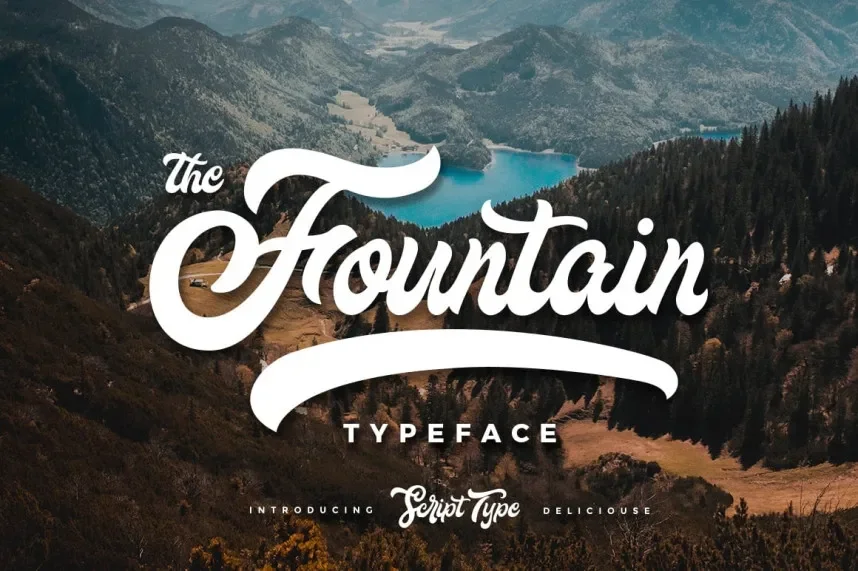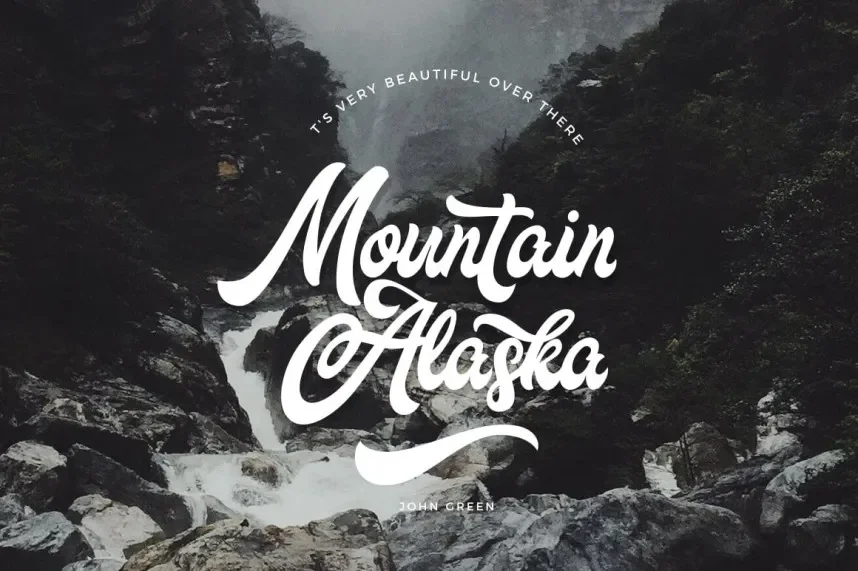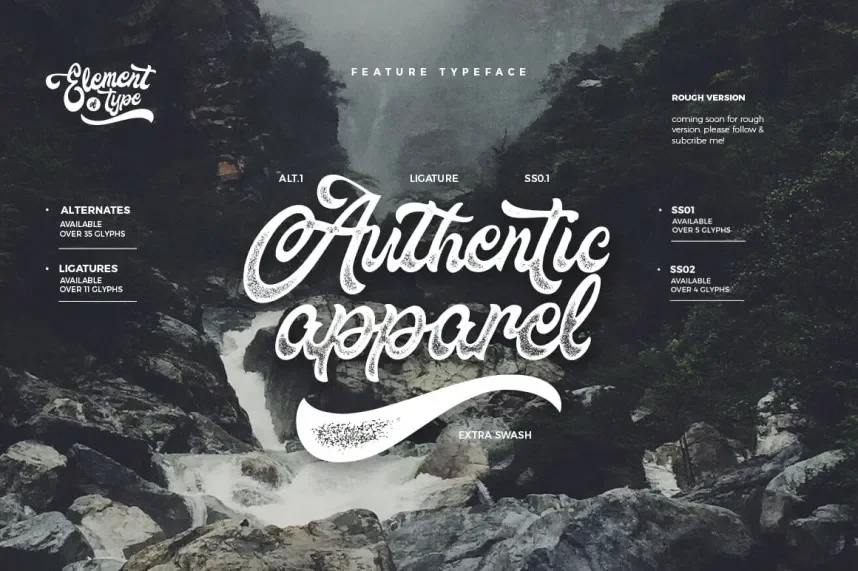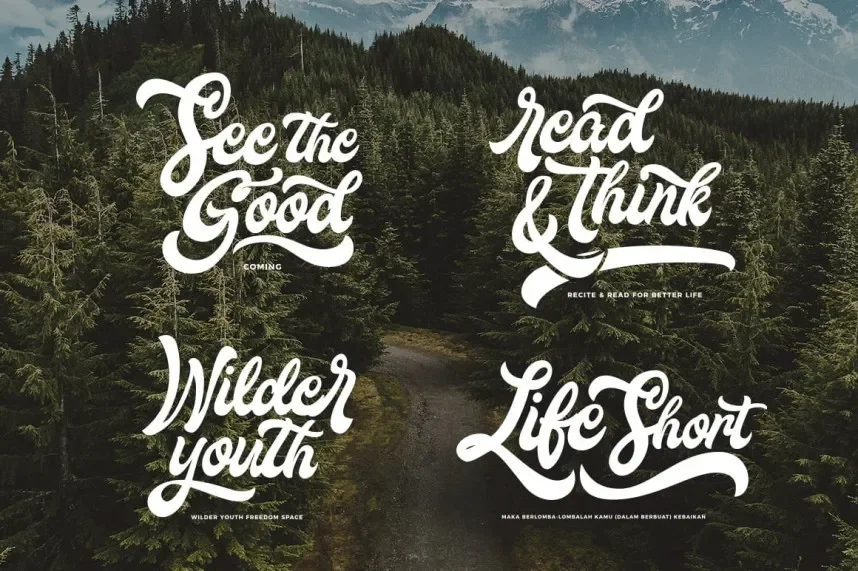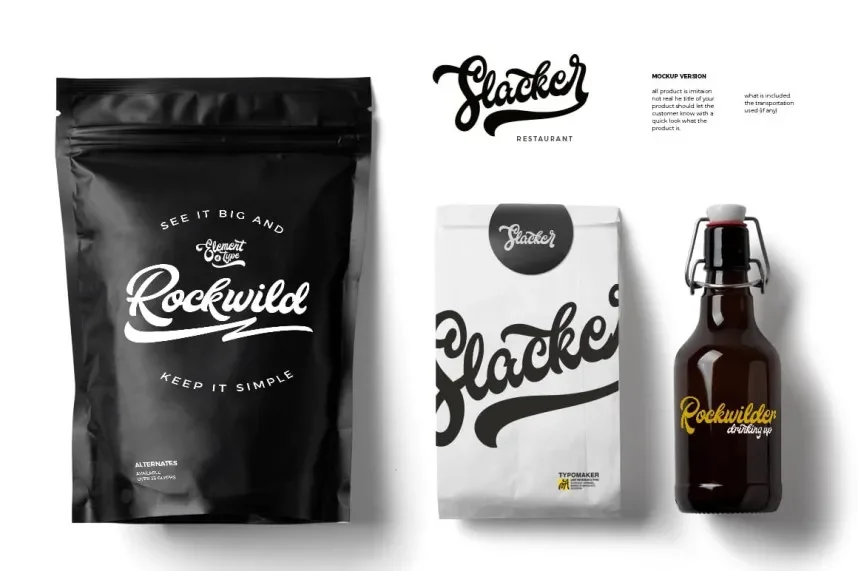
The Fountain Script Font addresses the need for smooth, connected lettering in formal and decorative text applications.
It is classified as a script font, featuring flowing strokes, connected letterforms, and consistent rhythm. The design emphasizes continuity rather than sharp contrast.